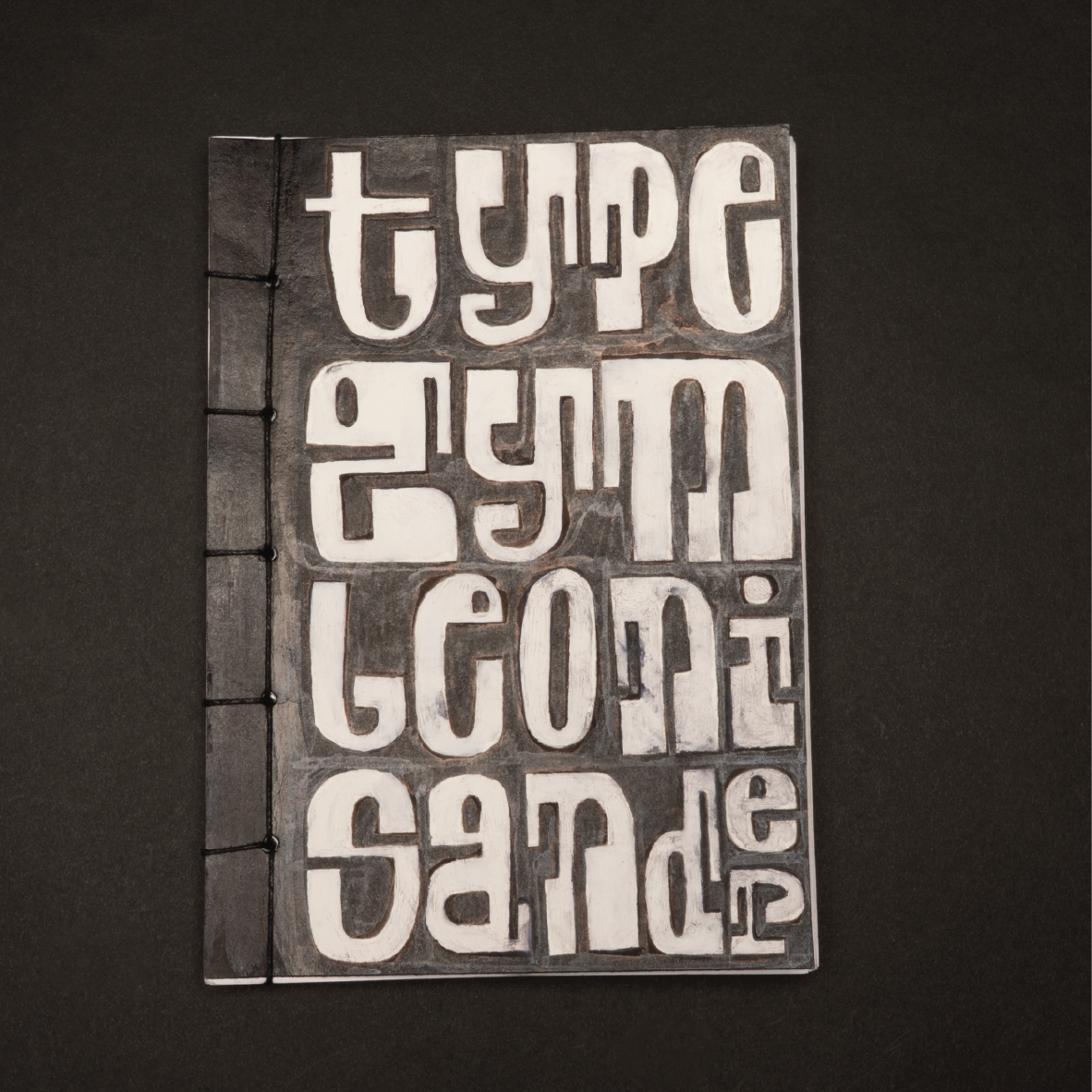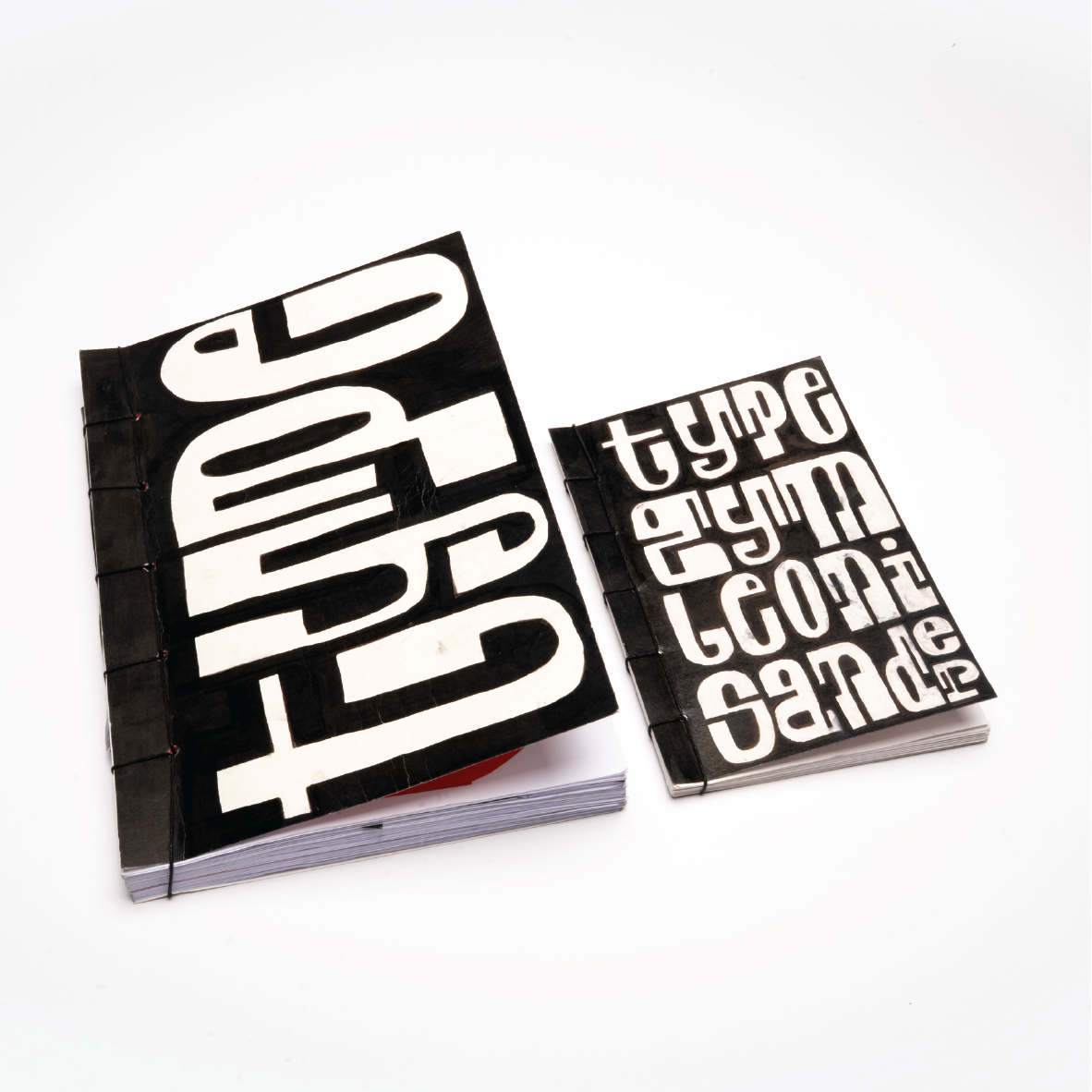
In a rare F37® × crossover, Leoni Sander created F37 Synkope while attending Professor Rejane Dal Bello’s (designer of F37 Bezier) type class.
Leoni’s first commercial typeface bucks consistency and embraces spontaneity. Inspired by the rhythms and movement of electronic dance music, its syncopated arms and irregular structure reflect this. Working closely with F37, she tamed her initial freehand sketches, developing it into a functional typeface while still retaining its groovy roots. F37 Synkope offers four duplexed weights, making the variable format perfect for motion design.
Leoni Sander
The Designer
Leoni Sander is a communication design student from Düsseldorf, Germany, currently studying at the University of Applied Sciences Düsseldorf.
During her internship in 2023/24 at büro uebele in Stuttgart, she developed her first typeface (hopefully of many) for a visual identity and realised that typography is her speciality. She enjoys using typography and design to take a stance and communicate content clearly and meaningfully on multiple levels. Breaking social or design conventions and giving visual form to ideas. Fascinated by the interplay between form and language, she loves to explore how a single curve or space can shift meaning and mood. Whether it's through playful experimentation or precise detail, she loves finding new ways to give type and design a voice.
Inspiration
The idea for the typeface started in a university class taught by Professor Rejane Dal Bello. The type class was called TypeGym, and we designed over 200 different letters in four weeks. We were also asked to design an album cover, and there was a lowercase "f" that I particularly liked. it reminded me of a person dancing to electronic music, with their arms in motion. From there i started to design more letters of this type. Rejane saw the potential in this typeface and introduced me to F37.
When I started designing the typeface, I was interested in breaking up the strict typographic structure and developing more expressive forms. I decided to introduce more dynamic arms and curves, to create a sense of groovy flow, something that feels almost dance-like. My aim was to explore the tension between structure and spontaneity, reflecting how electronic music combines precision with emotion.
I'd love to see it used in a visual identity for a music festival or cultural institution, something related to electronic music, movement or contemporary art. It would be really cool to work with a record label or event series where the typeface becomes part of the overall vibe, on posters, motion graphics, merchandise, maybe even stage design. The idea of bringing it to life in a space where sound and visuals meet would be amazing.
It was very interesting to have a look behind the scenes of how a font is created for publication at a typefoundry and how professional type designers work. For me it was new to give my work into other hands, but it was a pleasure to see what else is possible with my work.
Groovy, contemporary, kinetic